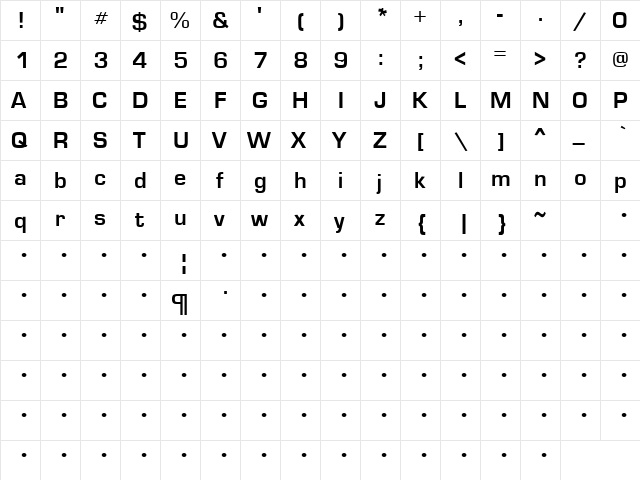
Green Mountain 15 Bold
Design Context for Green Mountain 15 Typeface
Green Mountain 15 takes a measured approach to typography — its balanced proportions and neutral character make it a reliable workhorse for both digital and print work. Its bold stroke weight gives it real presence on the page.